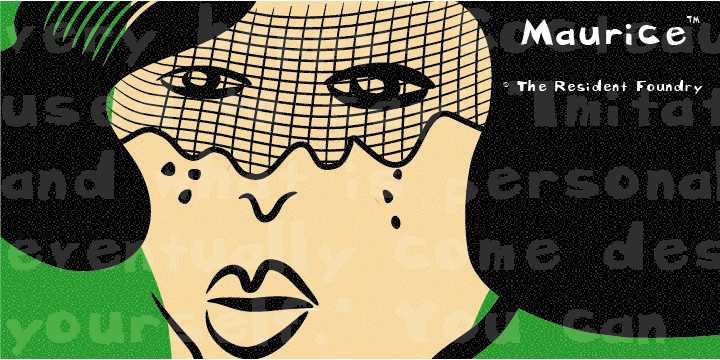
Maurice
Designed by: V.H. Fleisher
Designed when: 2007
Design owned by: Resident
Maurice
Created in 2007 by V.H. Fleisher, Maurice has a handmade quality.